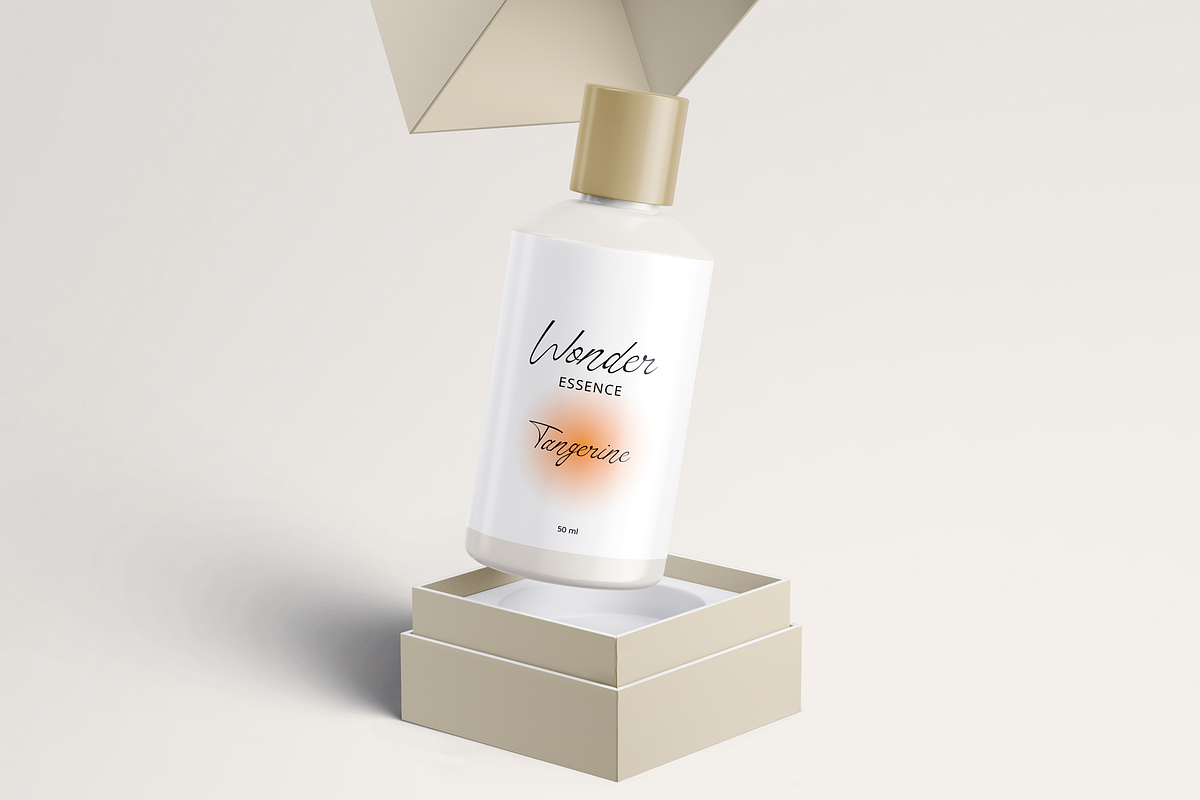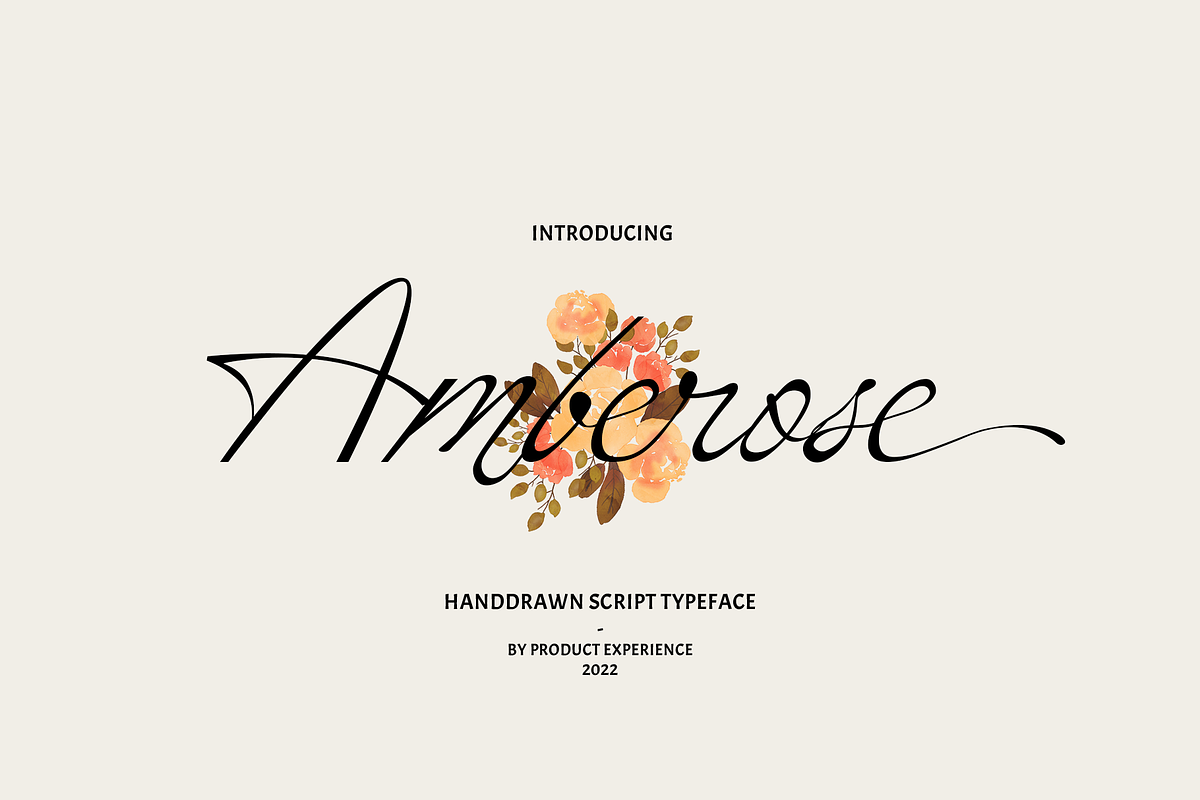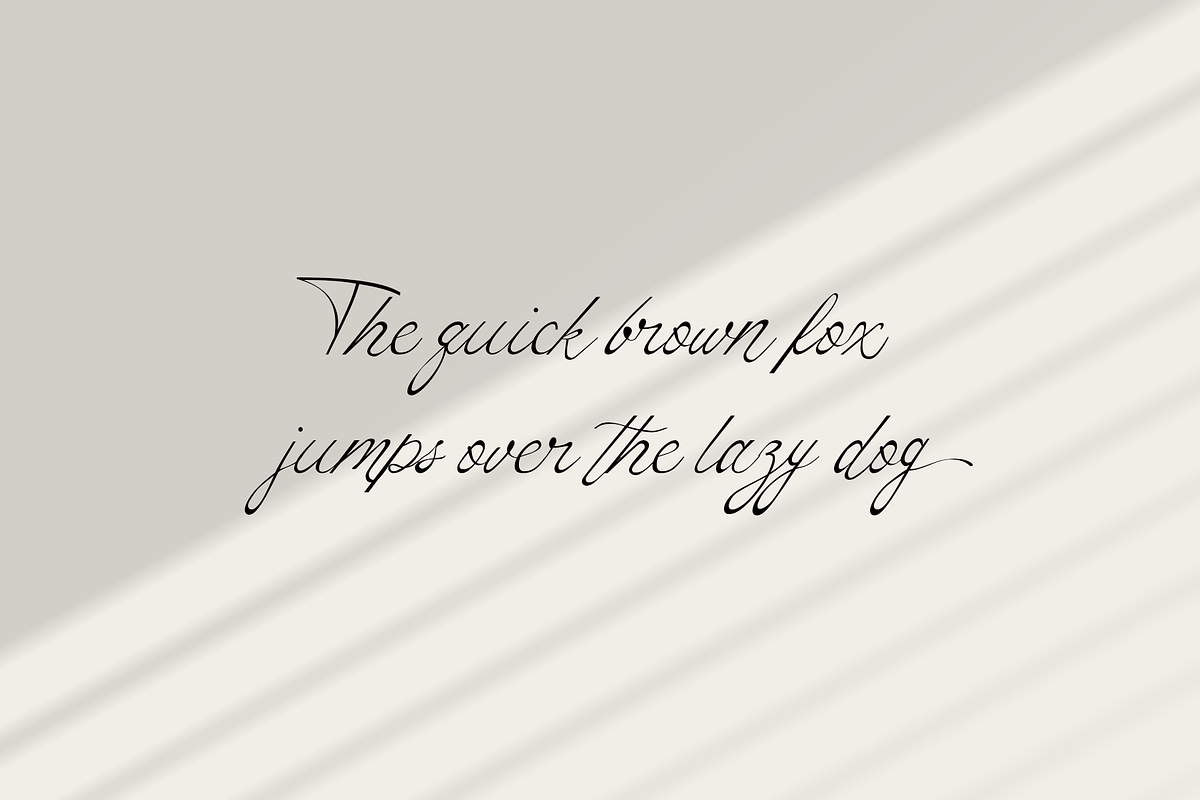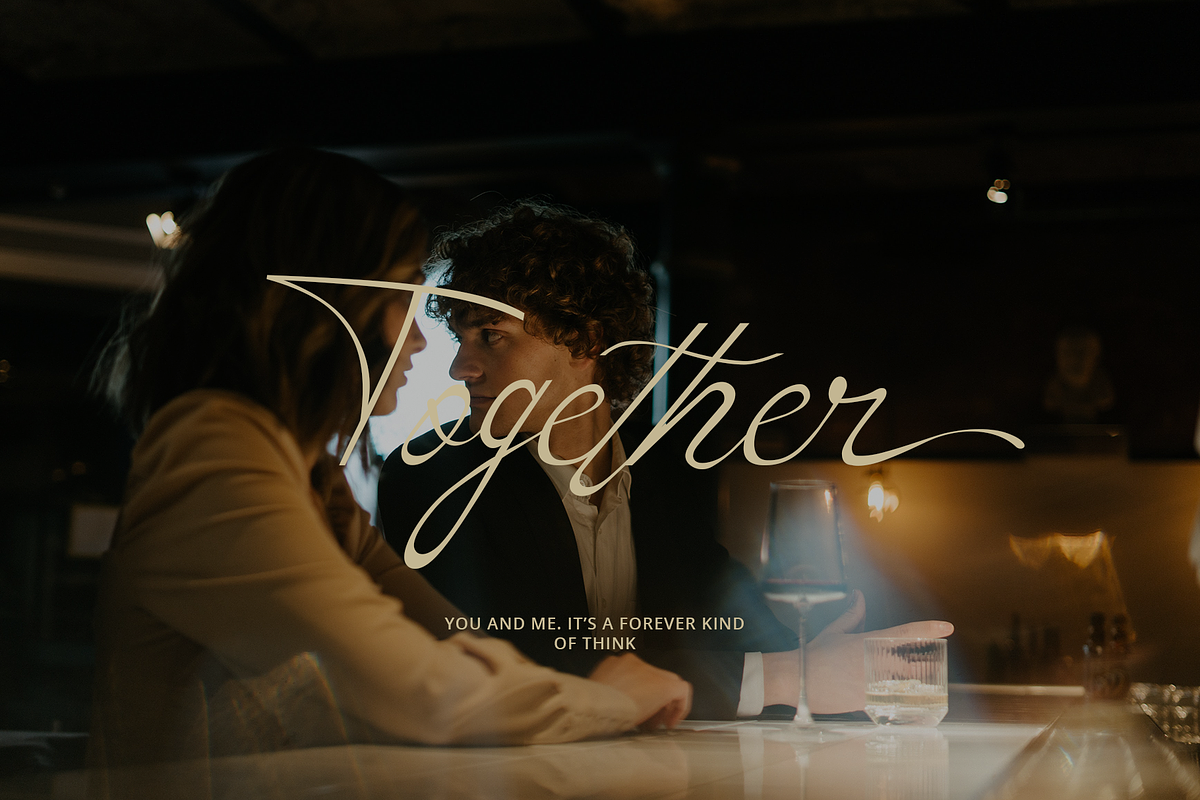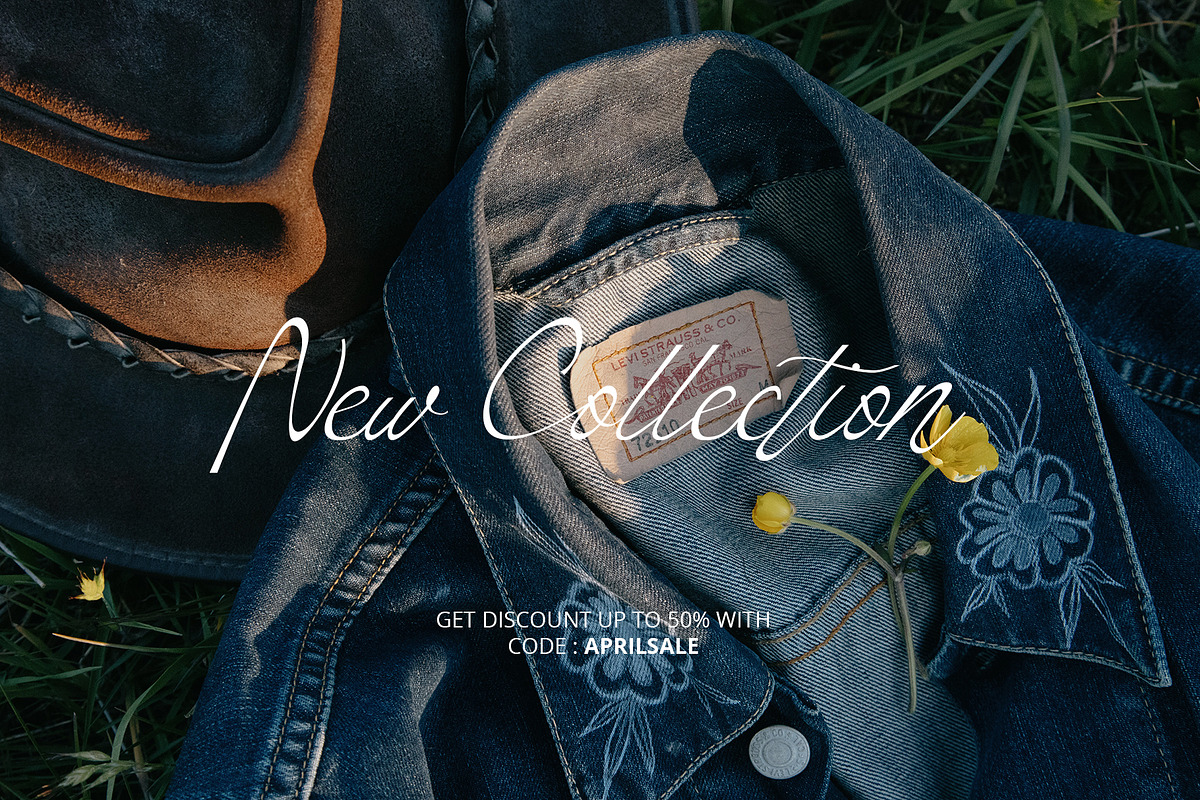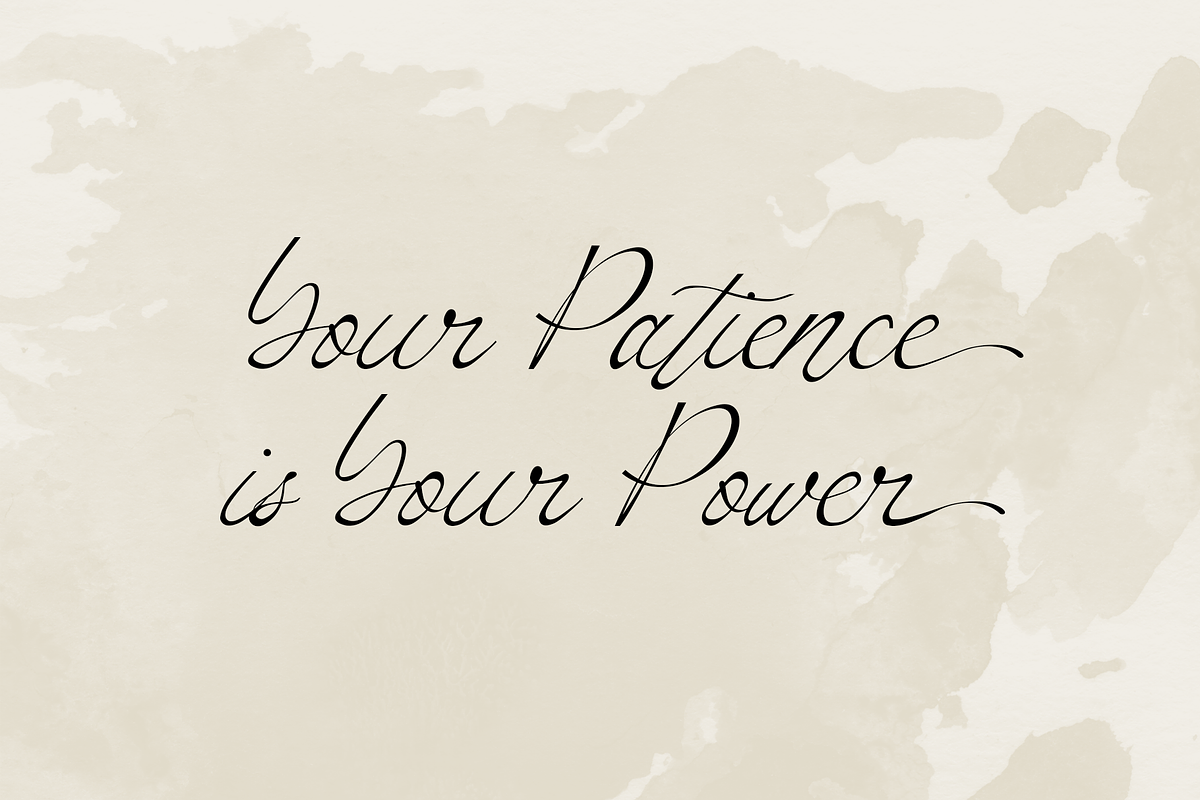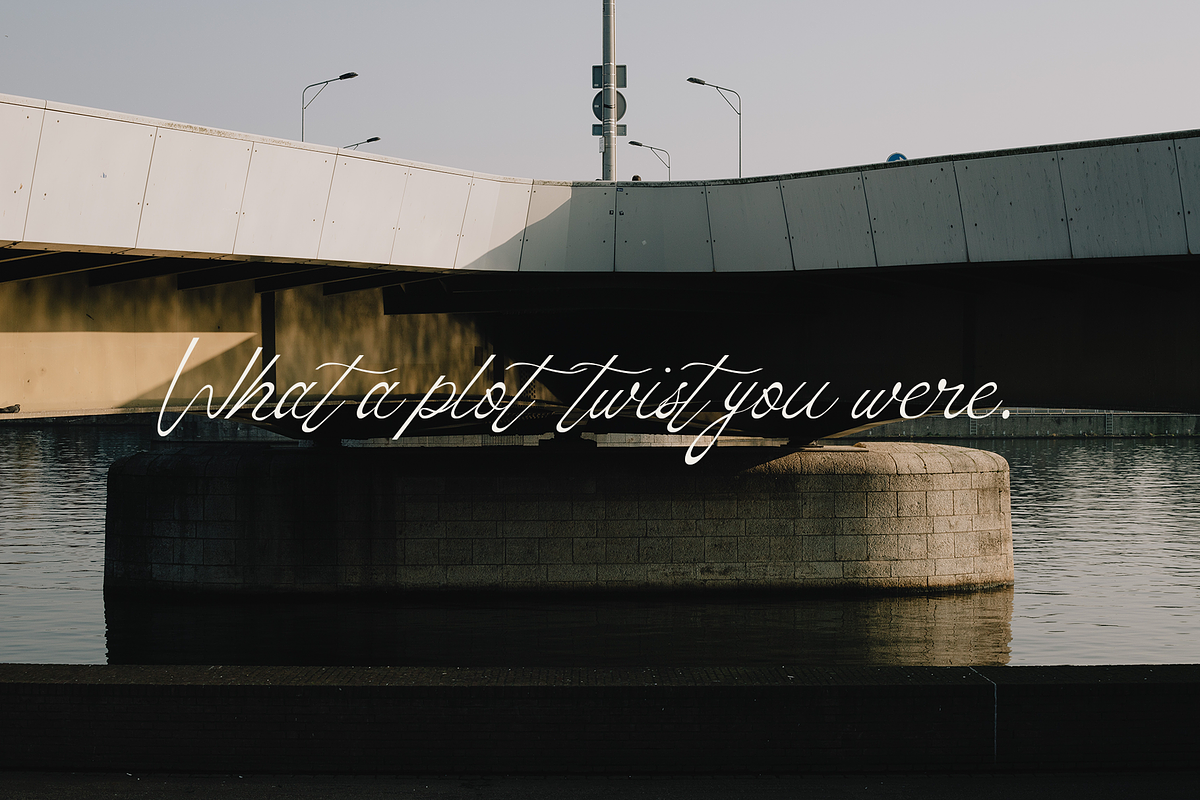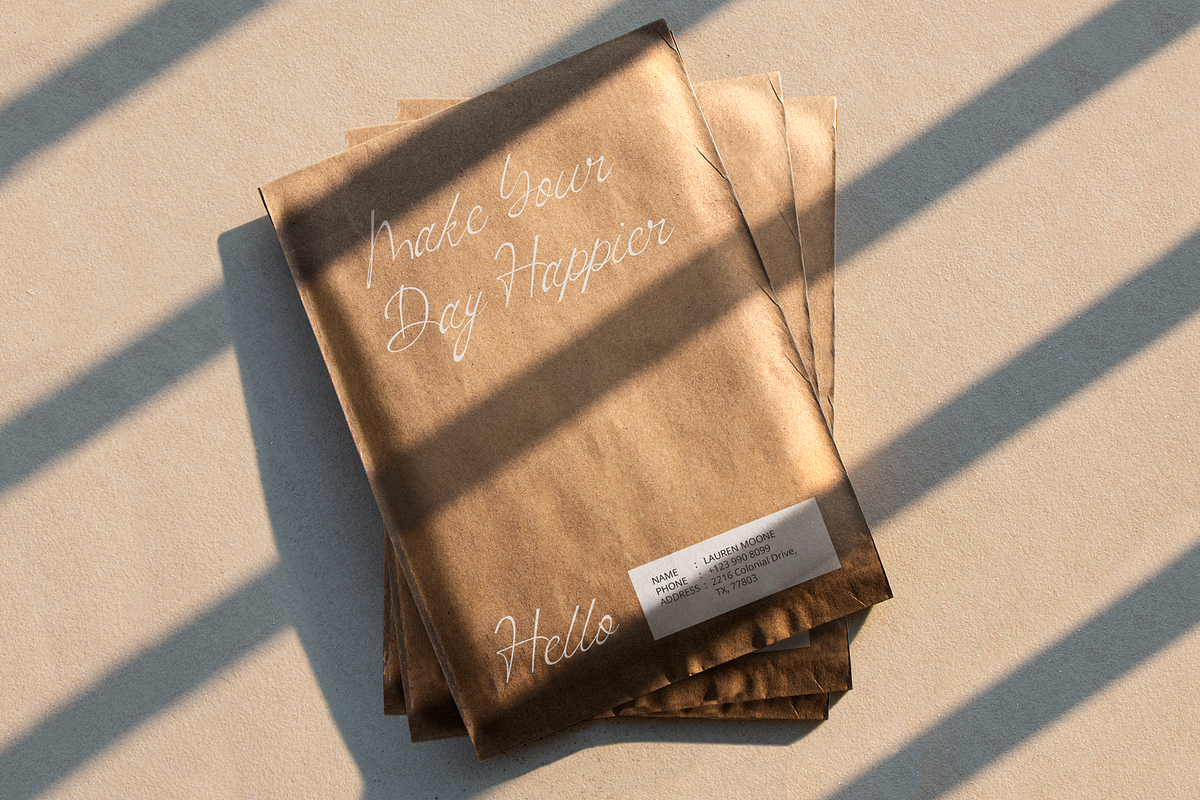
Amberose - Handdrawn Script
Amberose is a hand-drawn styled script font. This font is suitable for your design needs and can be combined with other fonts. besides this font is equipped with ligature, contextual, stylistic set (.ss01 , .ss02 ) and multi-language support.
This font is perfect for your design needs such as branding, logo design, wedding invitations, decorations, social media design, book, magazine and more.
- Total Glyph : 372
- Punctuation and Marks
- Contextual Alternative
- 90+ stylistic set & Ligatures